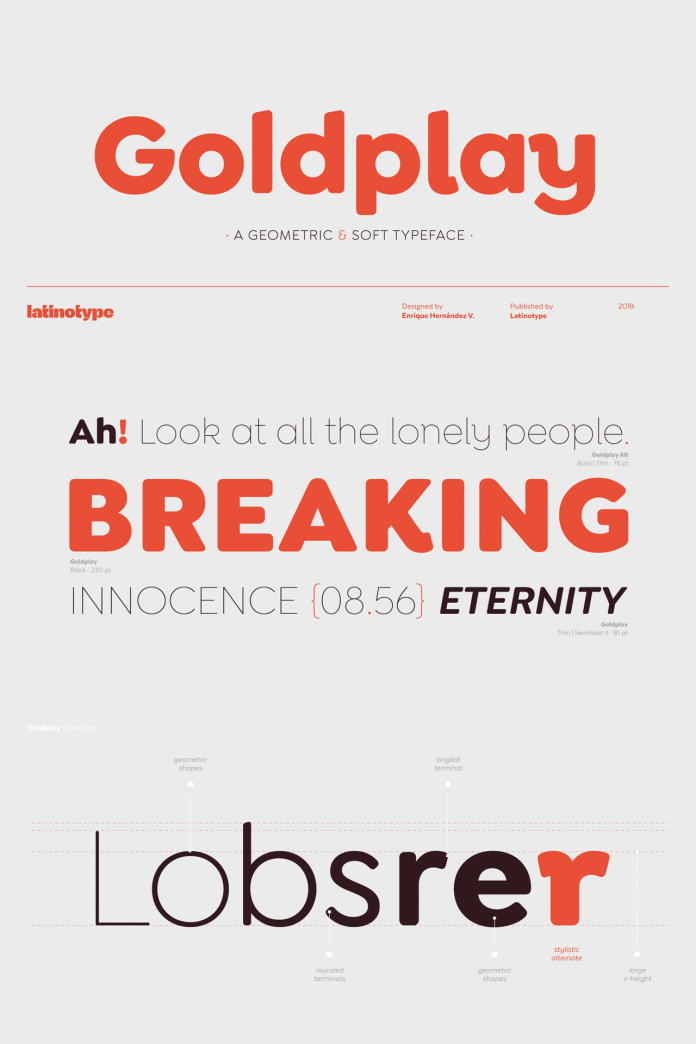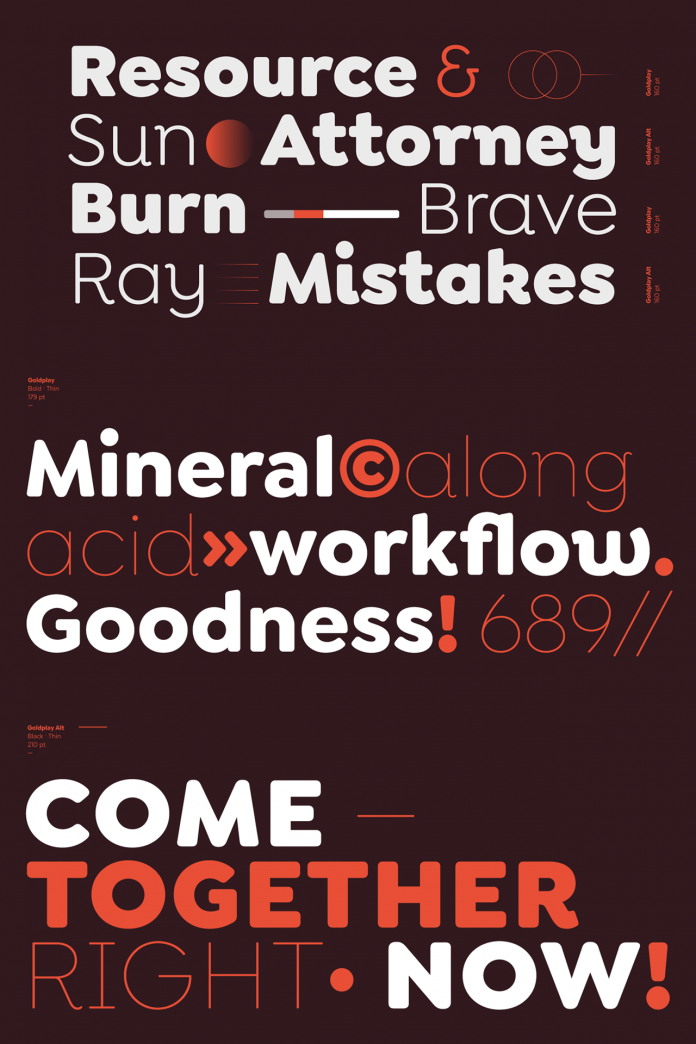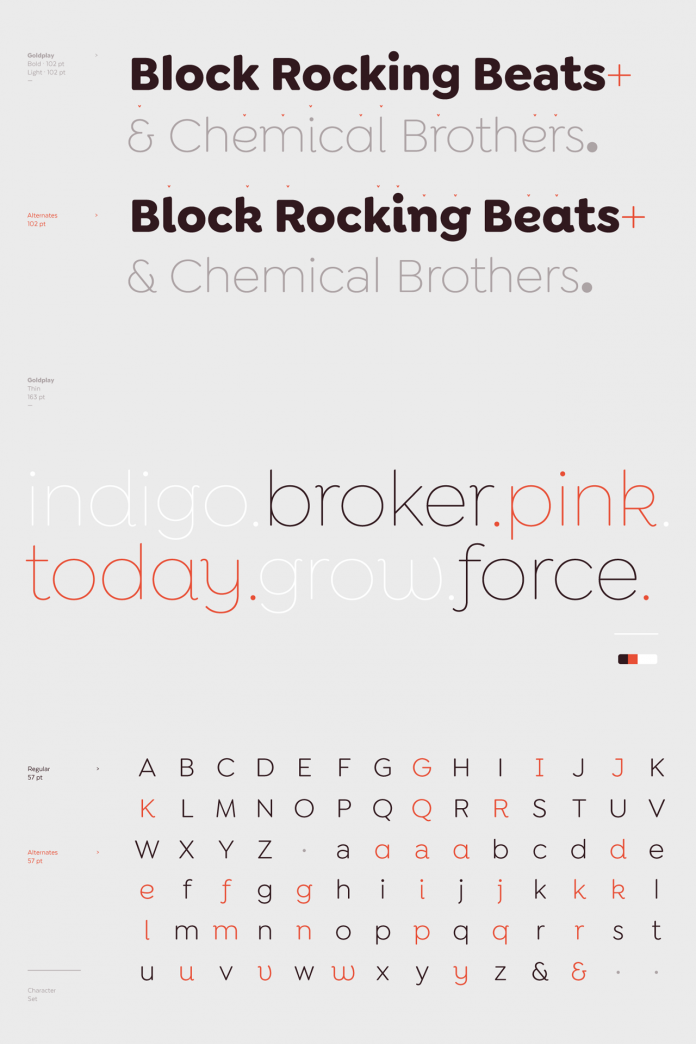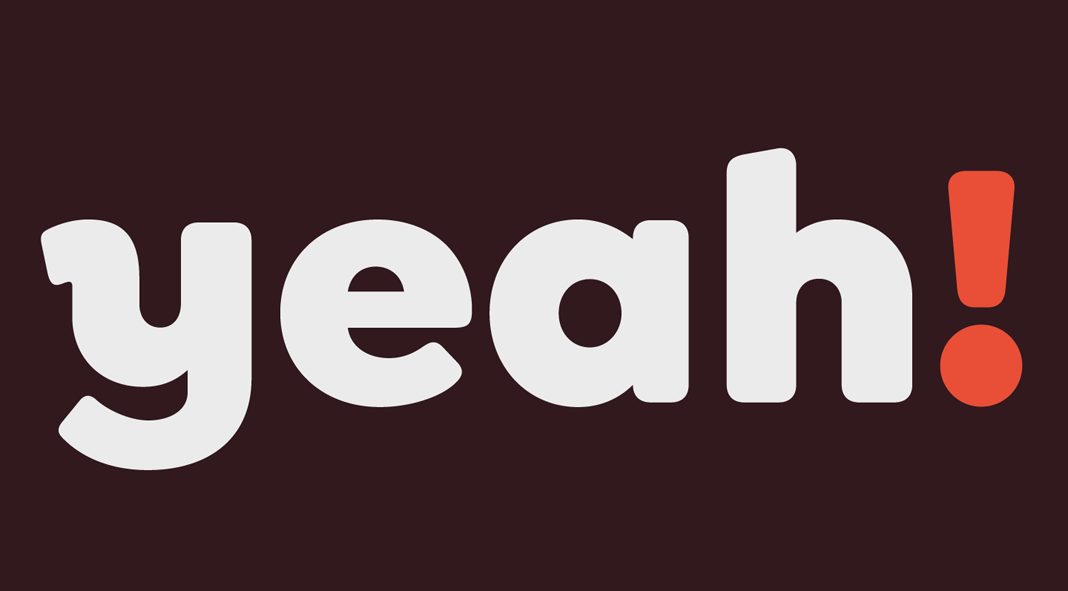
Goldplay, a friendly sans-serif font family with rounded, soft terminals.
Designed by Enrique Hernandez and published by foundry Latinotype just a few days ago, Goldplay is a new friendly sans serif font family for headlines, logotypes, branding projects, motion graphics, book and magazine covers, just to name a few. Its design is based on the popular Isidora Sans font family but with the addition of rounded, soft terminals, which give it its friendly and modern look. To learn more, just click on the following link or read more below.
Goldplay’s typeface is also characterized by its large x-height, which gives the family an elegant and classic look. The Goldplay font family consists of 2 versions—each in 7 weights ranging from thin to black plus matching Italics. The standard version offers a clean and particularly easy-to-read appearance. It’s a good choice for any kind of editorial work as well as corporate designs, headlines, books, and magazines. The Alt semi-serif display version is slightly more expressive and modern. That’s why, it’s perfect for creating logotypes, brand identities, packaging as well as any kind of web and graphic design project. The family contains 540 characters and supports more than 200 Latin-based languages.